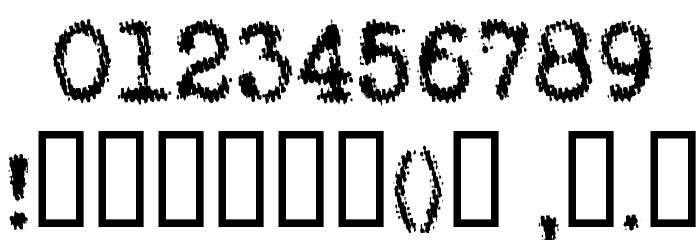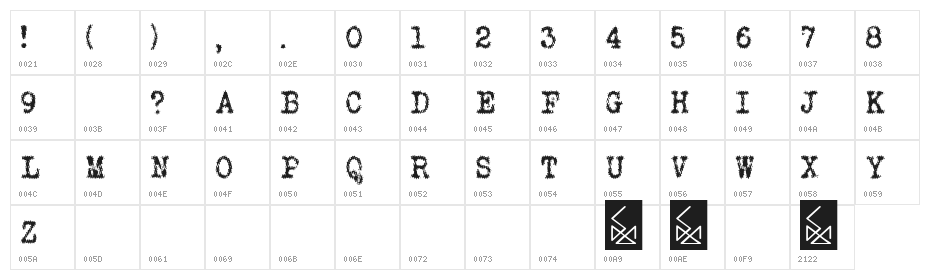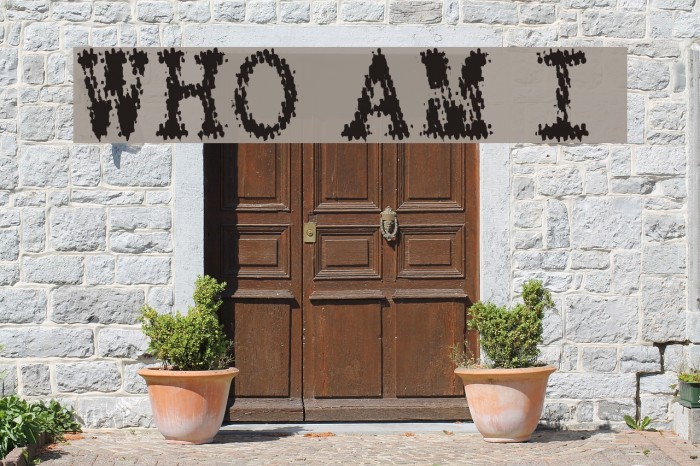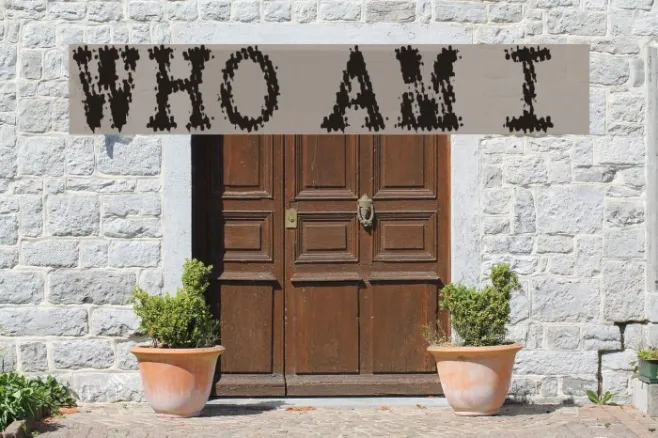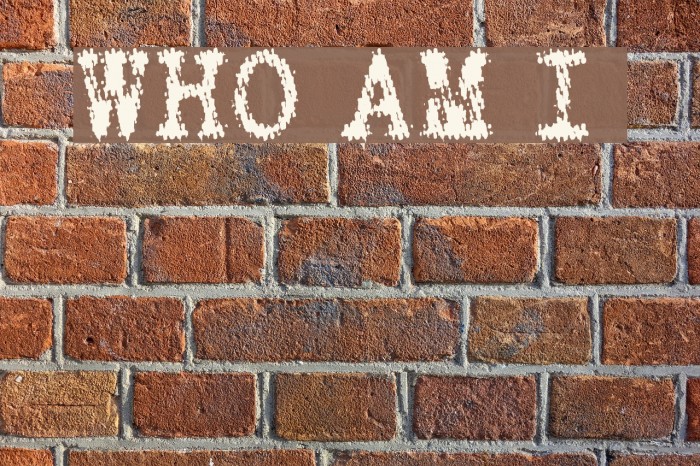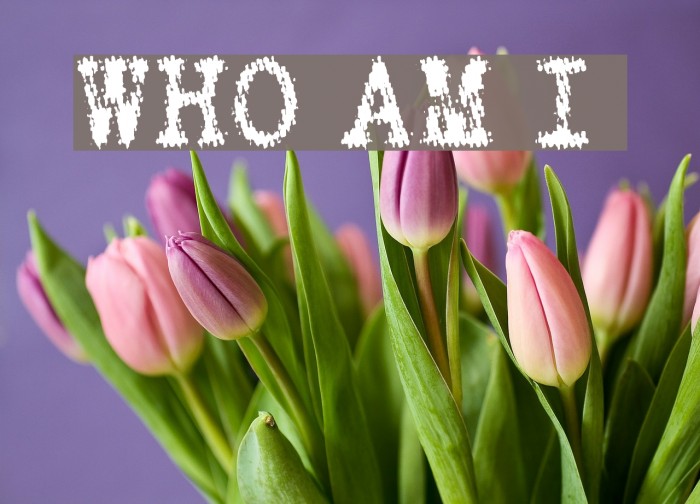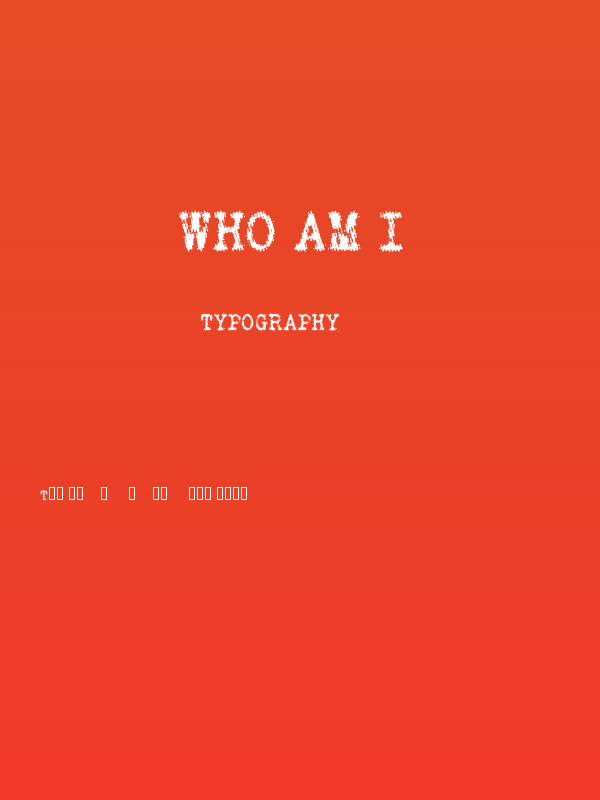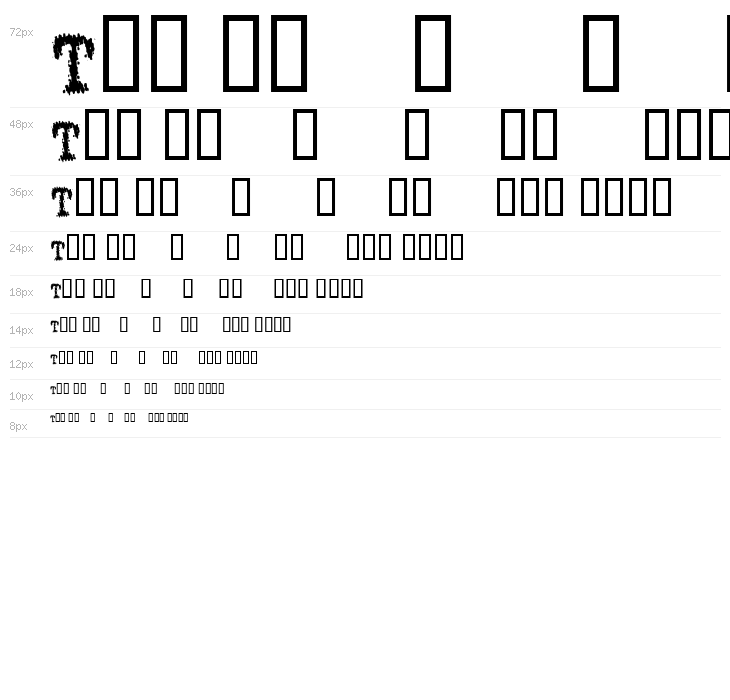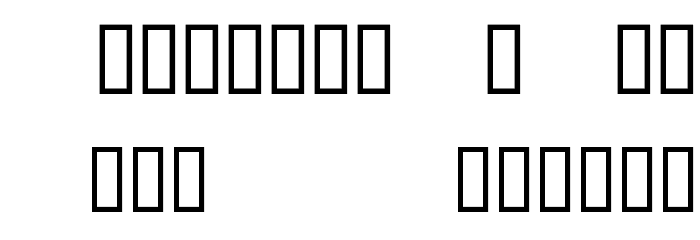
WHO AM I Font
WHO AM I Description
This font features a distinctive, distressed style with a textured appearance that gives it a rugged, worn look. The uppercase letters are bold and impactful, with irregular edges that create a sense of movement and energy. The numerals and special characters maintain this textured effect, ensuring consistency across all glyphs. The font's unique style makes it stand out, ideal for projects that require a bold statement or an edgy, artistic touch. Its high contrast in stroke thickness adds to its dramatic appearance, making it suitable for eye-catching designs.
Proposed ProjectsIdeal for posters, album covers, branding for edgy products, or any design needing a bold, artistic statement.